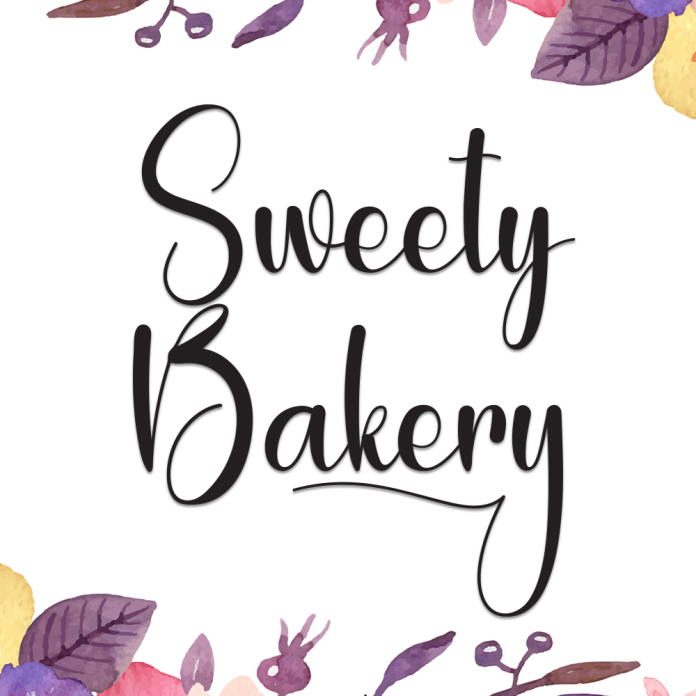
Sweety Bakery is a delightful handwritten font inspired by the sweetness of homemade treats. Its charming curves and soft strokes make it perfect for bakery logos, food packaging, recipe cards, and anything that needs a dash of cozy, creative flavor.
Sweeten your design with a personal touch.
Handwritten Script Typeface
Uppercase & Lowercase Letters
Ideal for Branding, Packaging & Social Media
Numbers & Punctuation
Multilingual Support
Add a spoonful of sweetness to your creations with Sweety Bakery.